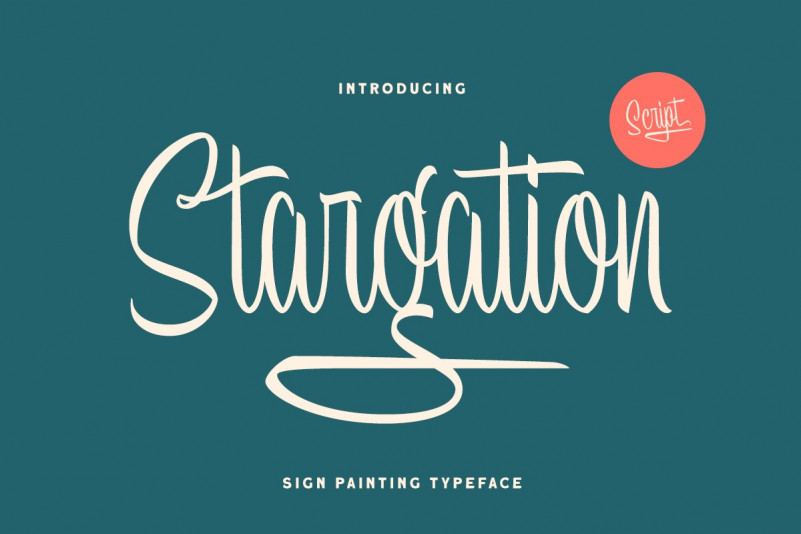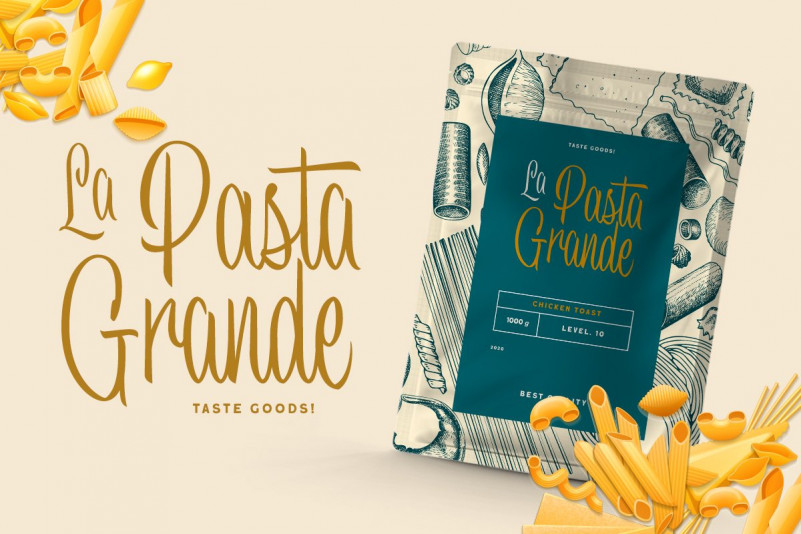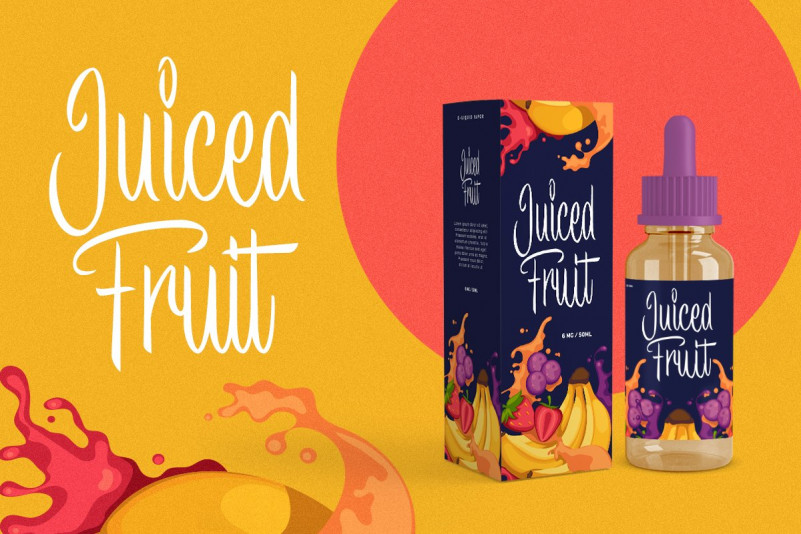
Stargation Font
Introducing, Stargation. This display script has unique anatomy with thin and condensed glyhps which is brings the casual and playful feel. Perfectly made to be applied especially in logo, and the other various formal forms such as invitations, labels, logos, magazines, books, greeting / wedding cards, packaging, fashion, make up, stationery, novels, labels or any type of advertising purpose.